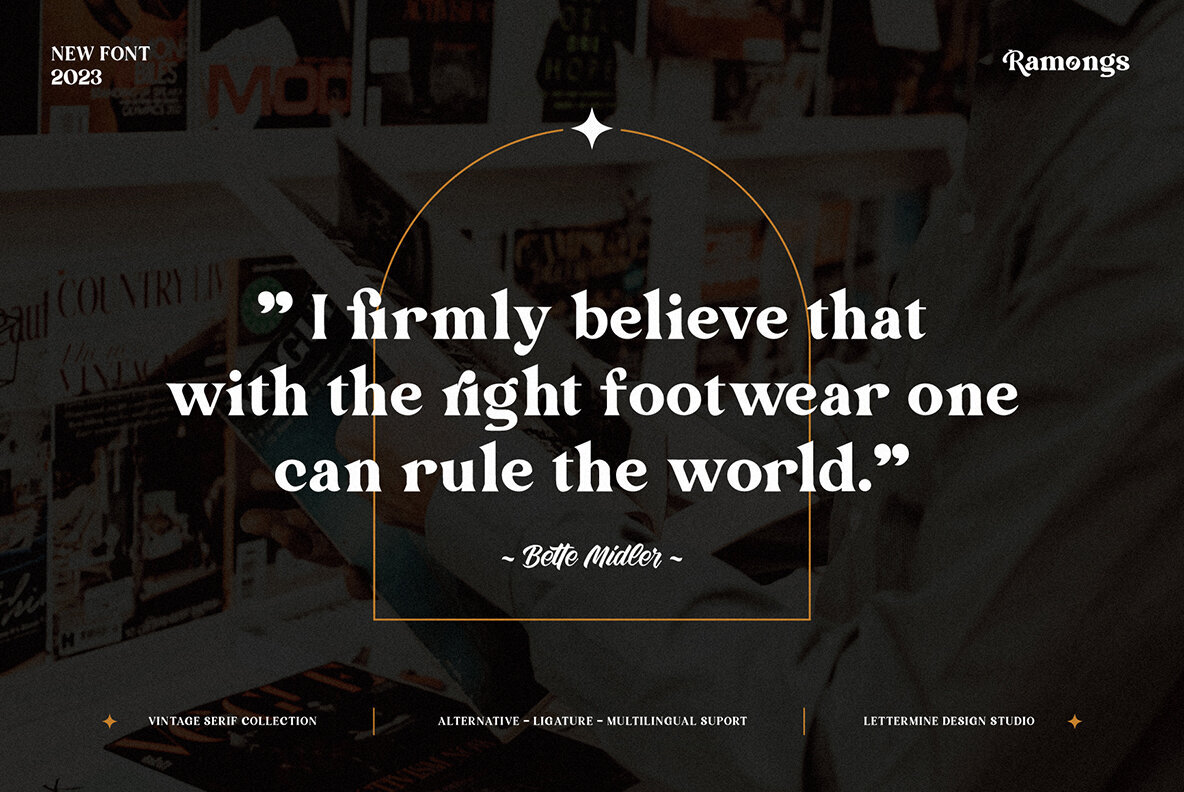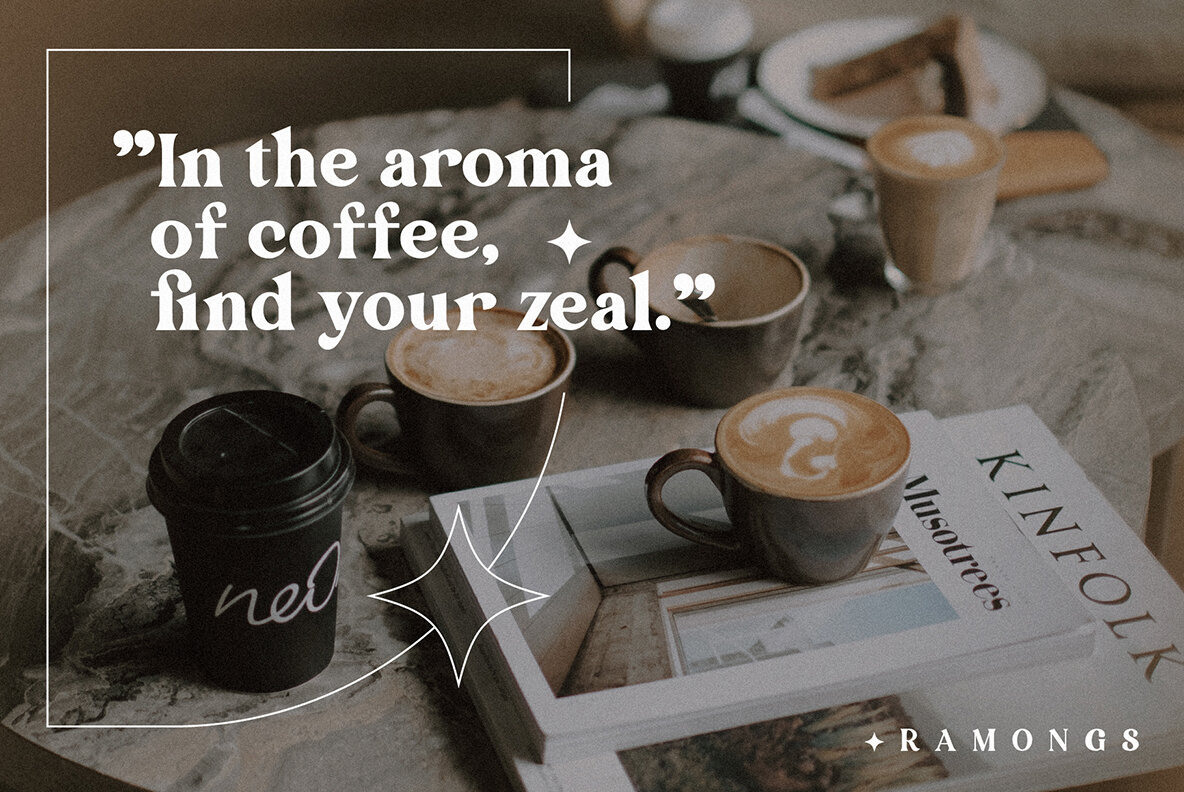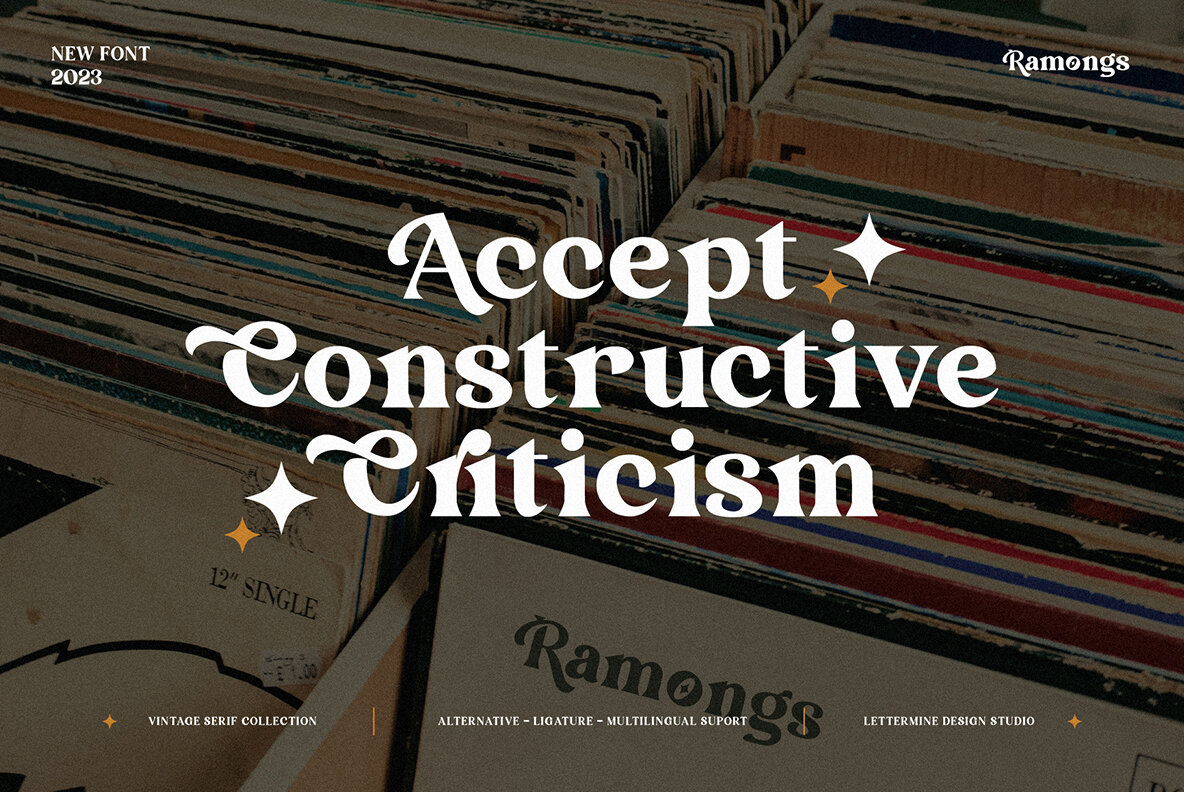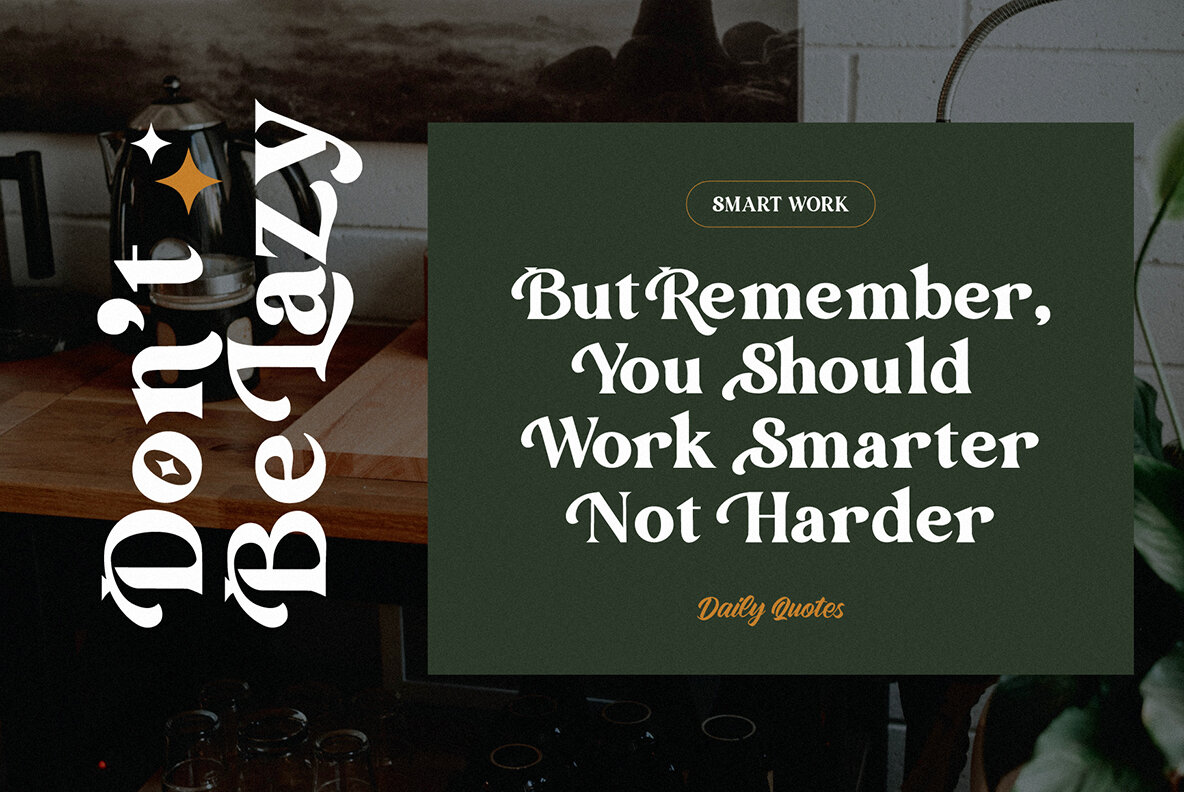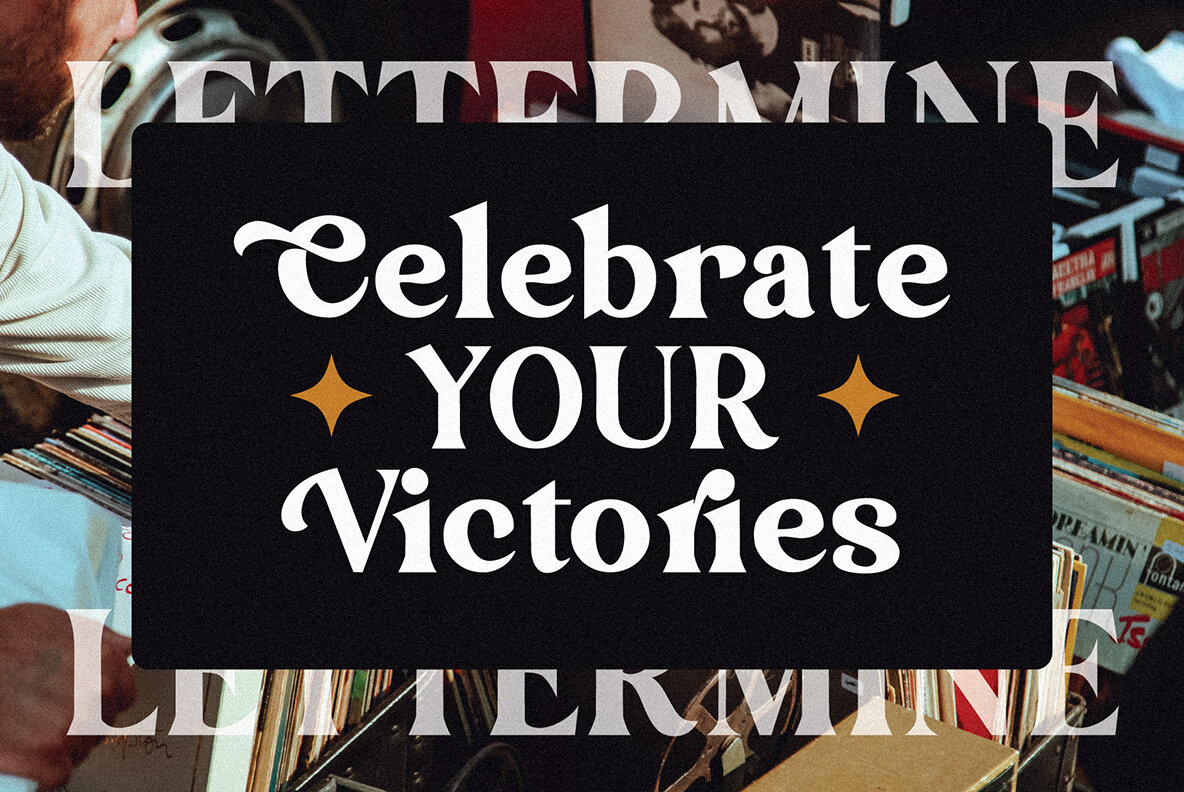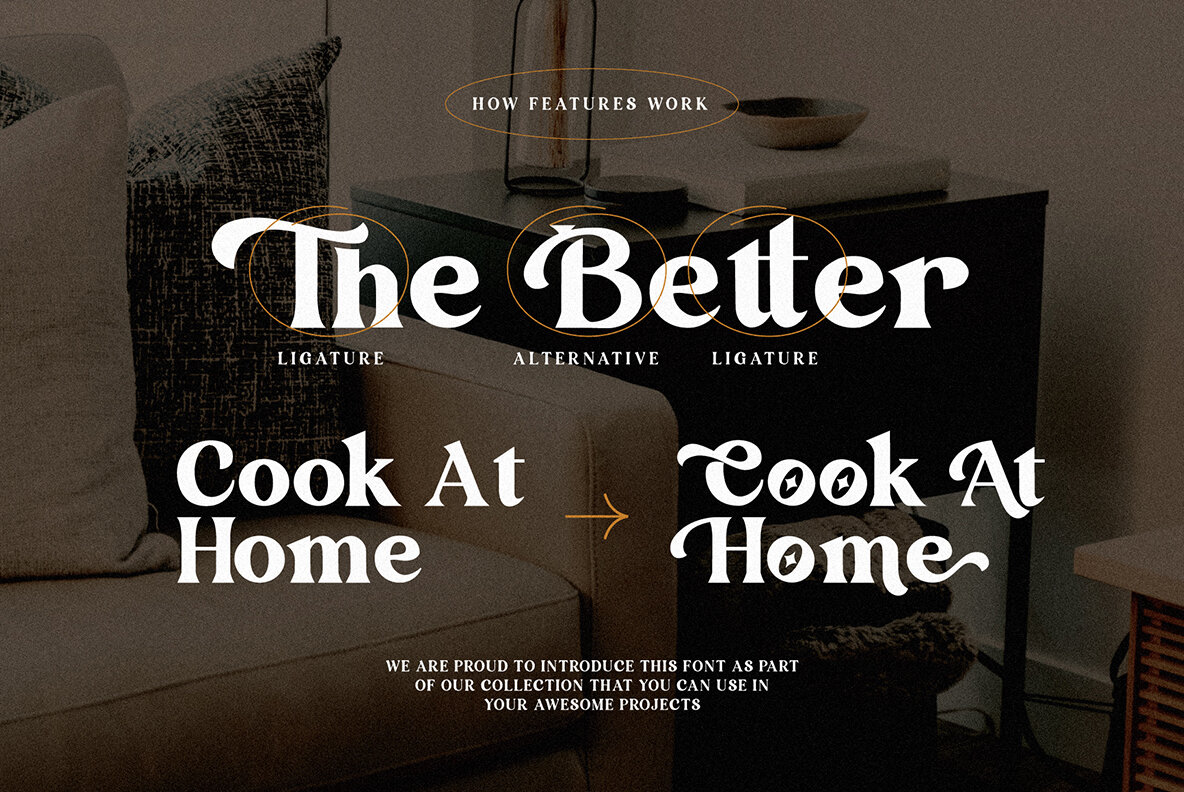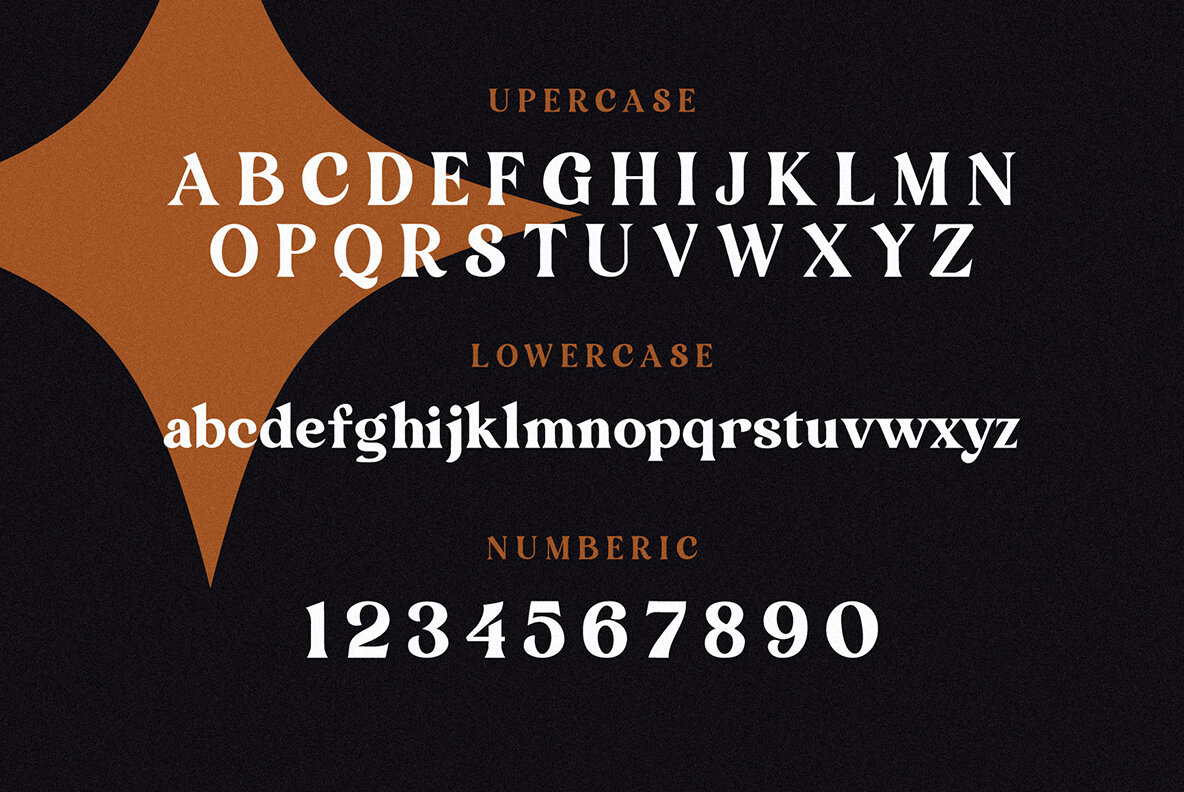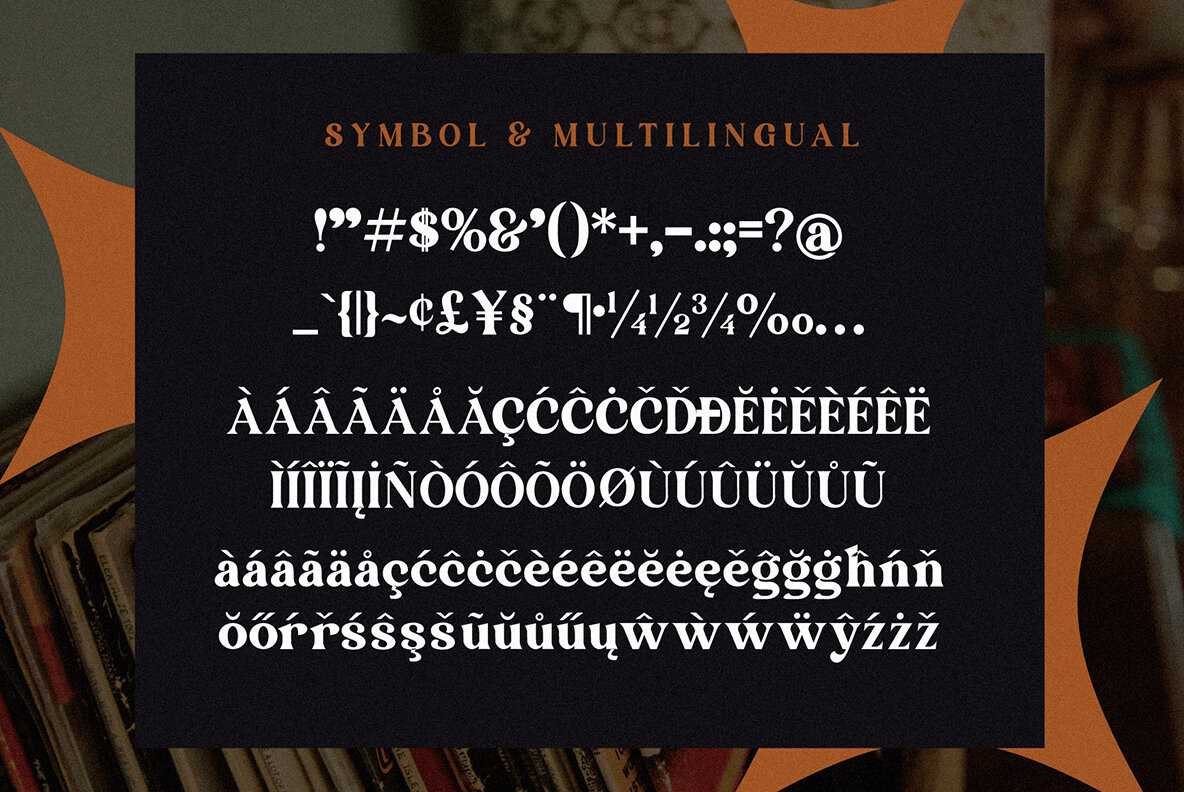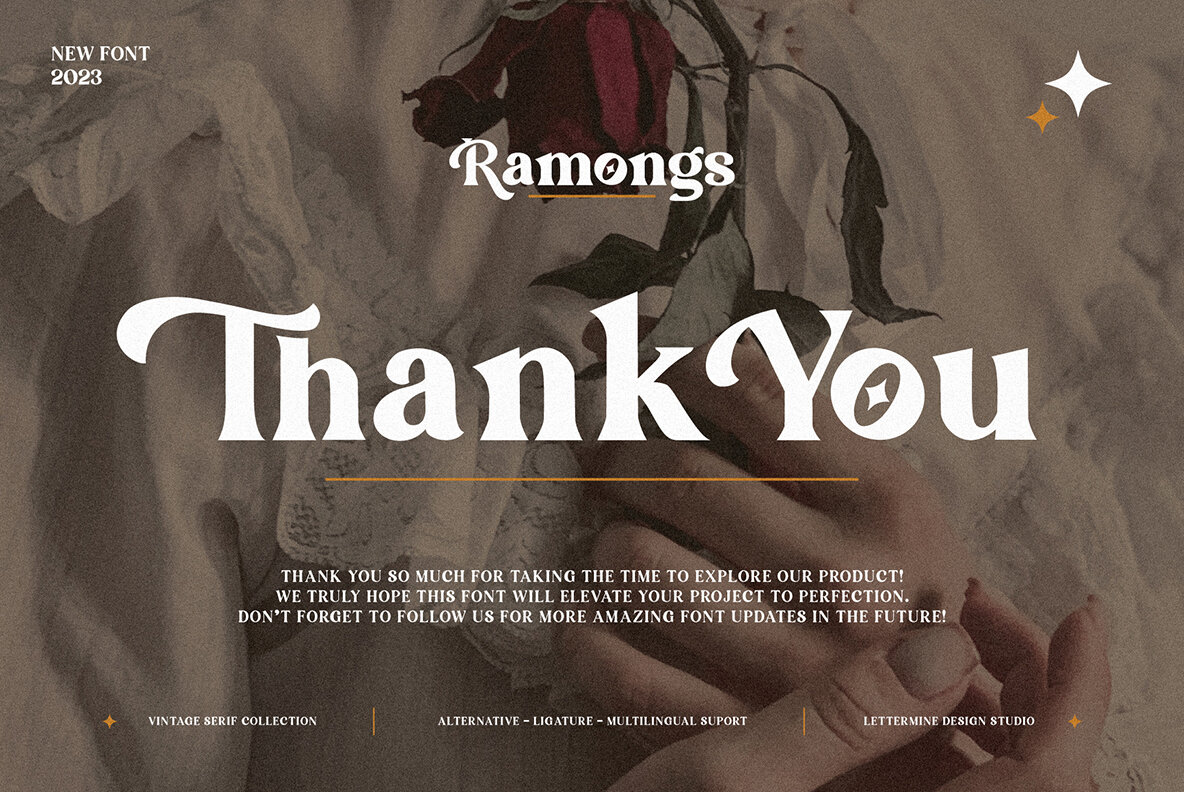
Ramongs Font
Ramongs Regular
A captivating and versatile Serif font designed to add a touch of elegance and modernity to any project. Whether you're designing for the fashion industry, food industry, or various celebratory occasions like weddings, birthdays, or engagements, this font is your perfect companion. With its stylish and contemporary Serif style, Ramongs - Fancy Serif Font effortlessly captures attention and elevates your designs to new heights. Key Features: